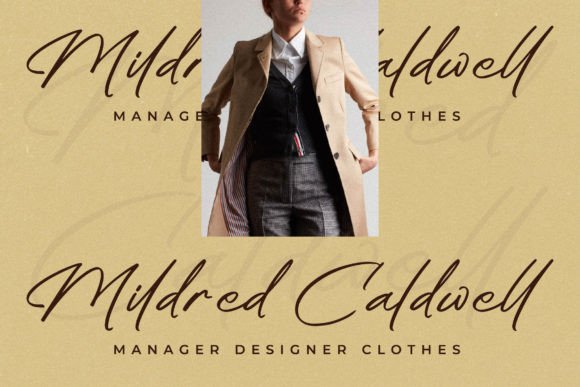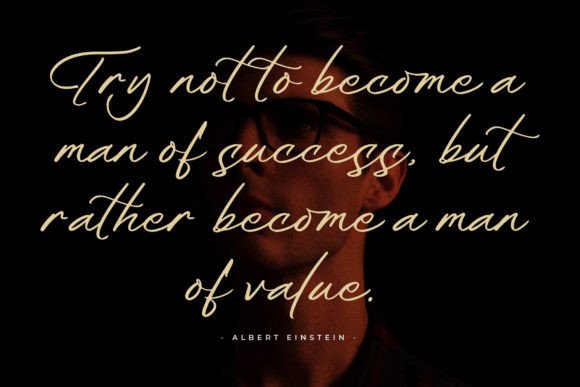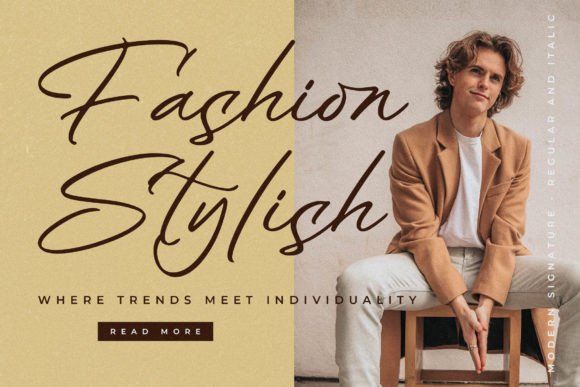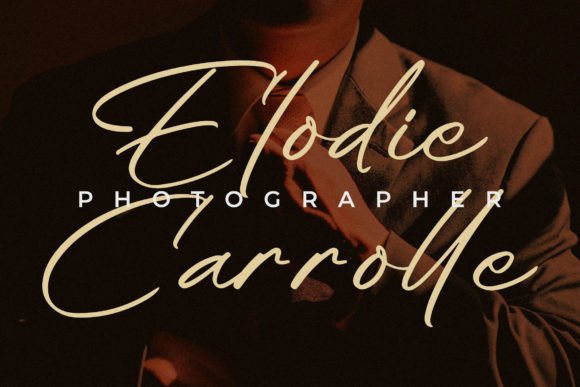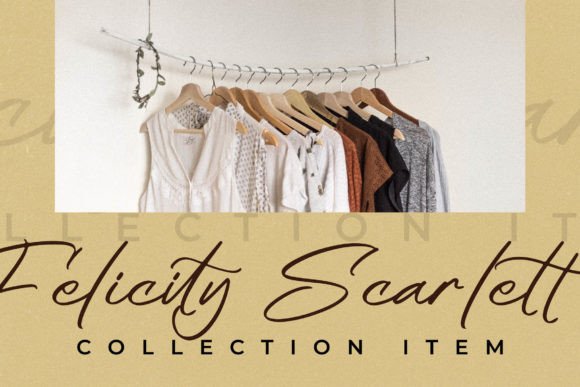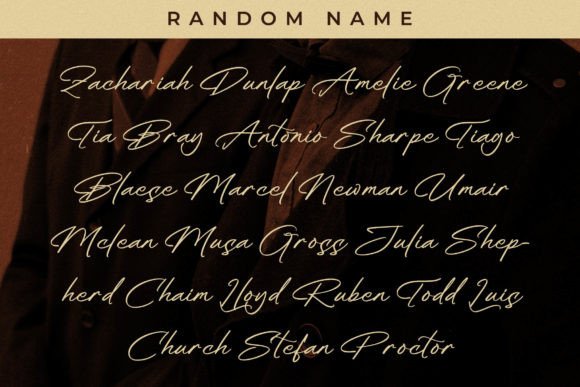
Introduction to Penatthia Blackwell Font
As a designer, you’ve probably found yourself in a moment where the perfect font eludes you, but the vision is crystal clear. You see a beautiful, handwritten script in your mind’s eye, and you’re desperate to bring it to life. For those moments, we’re excited to introduce the Penatthia Blackwell Font – a stunning, modern signature font that’s perfect for a wide range of creative projects.
The Penatthia Blackwell Font is a game-changer for designers, offering a unique style that’s both elegant and versatile. Whether you’re working on a logo, branding project, or product packaging, this high-quality font is sure to elevate your design to the next level. With its transparent background and beautiful script taste, it’s the perfect design resource for any creative project.
Key Features of Penatthia Blackwell Font
- High-quality design resource ideal for creative projects, including logos, branding, and advertisements.
- Unique, elegant font style with a transparent background, perfect for overlaying on images or videos.
- Designed by a professional font creator, the Penatthia Blackwell Font is a valuable addition to any design resource library.
- Perfect for designers, artists, and creatives looking for a high-quality, free font to elevate their projects and designs.
Honest Review: Penatthia Blackwell Font
As a designer, I’m always on the lookout for high-quality design resources to elevate my creative projects. Recently, I stumbled upon the Penatthia Blackwell Font, and I must say, it’s been a game-changer for me.
- ✨ The font’s modern and elegant design makes it perfect for a variety of projects, from branding to editorial content.
- ✨ The transparent background option allows for seamless integration with any design element, giving me more creative freedom.
However, I did encounter a few limitations with the Penatthia Blackwell Font:
- ⚠️ The font’s weight range is a bit limited, making it less suitable for projects that require a wide range of font weights.
- ⚠️ Some characters may not be as legible at smaller font sizes, which can be a concern for projects that require precise typography.
Overall, I’m really impressed with the Penatthia Blackwell Font. While it may have some limitations, its unique design and high-quality features make it a valuable addition to any designer’s toolkit. If you’re looking for a modern and elegant font for your next creative project, I highly recommend giving the Penatthia Blackwell Font a try.
The Penatthia Blackwell Font is a high-quality, free download design resource ideal for creative projects. Its versatility and unique style make it a popular choice among designers.
Tips for Getting the Most Out of the Penatthia Blackwell Font
Use the Penatthia Blackwell Font with a transparent background to create a sleek and modern design.
Experiment with different font sizes and styles to create visual interest.
Common Use Cases for the Penatthia Blackwell Font
The Penatthia Blackwell Font is ideal for creative projects such as:
Branding and logos
Marketing materials
Graphic design projects
Websites and e
Can I use the Penatthia Blackwell Font with a transparent background?
Yes, the Penatthia Blackwell Font supports transparent backgrounds, allowing you to create stunning designs with a subtle and elegant look. To use a transparent background, ensure that your design application supports this feature, and then apply the font with a transparent background. This will give your design a sleek and modern appearance.